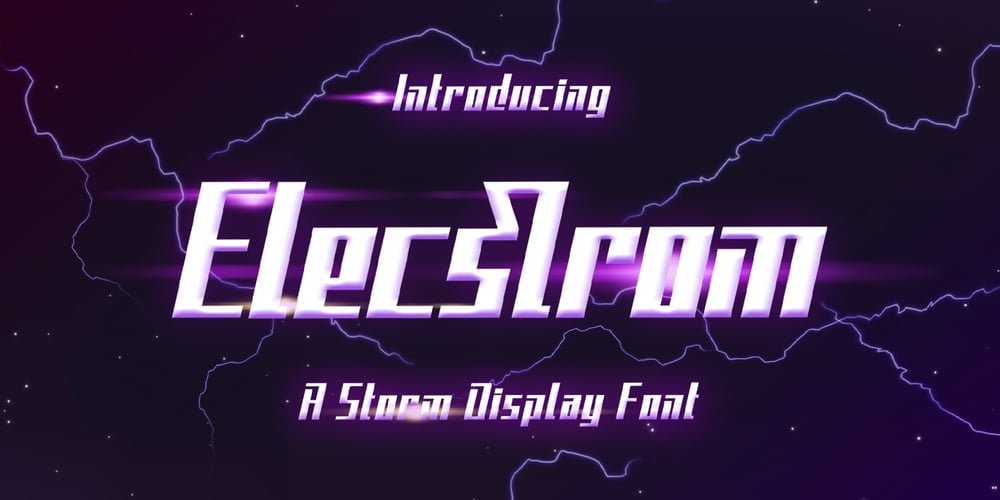
Elecstrom Font Family was designed by Hilmius Akbar and published by Typefactory. Elecstrom contains 1 styles and family package options. Elecstrom is a storm display font. Elecstrom has a bad weather feels so it has thrilling yet cool experience. Elecstrom is perfect for product cover, signpost, cover album, movie with disaster theme, game, and many more!Features:– Uppercase– Lowercase– Symbols & Punctuation– Numeral– Alternates– Ligature– Multilingual Support